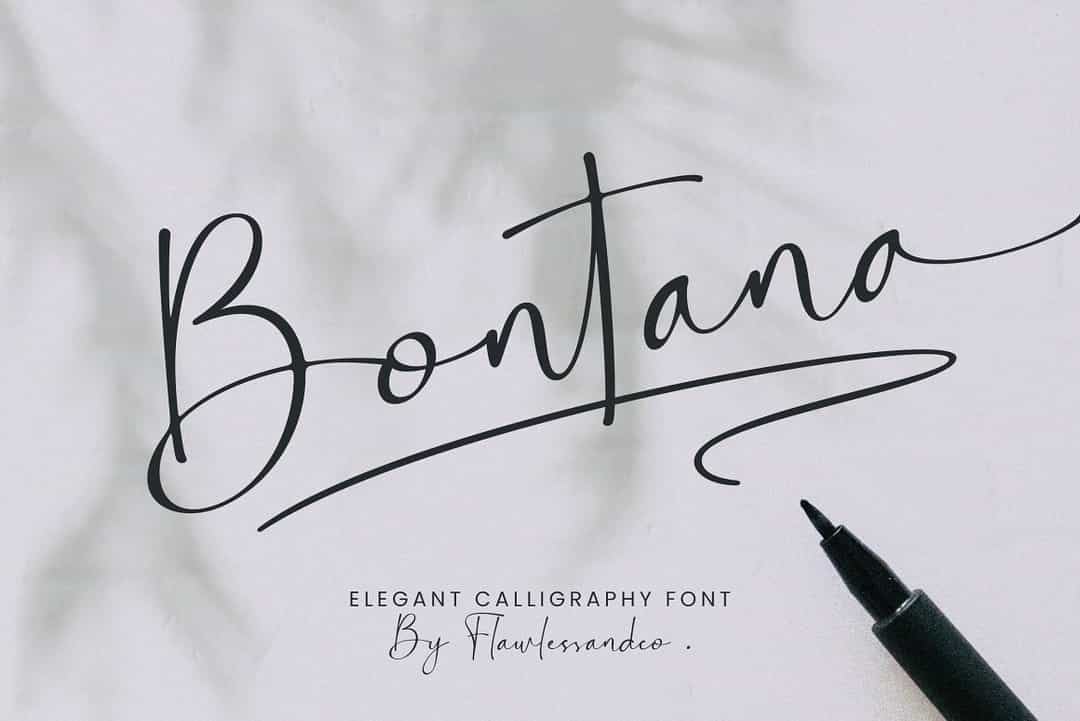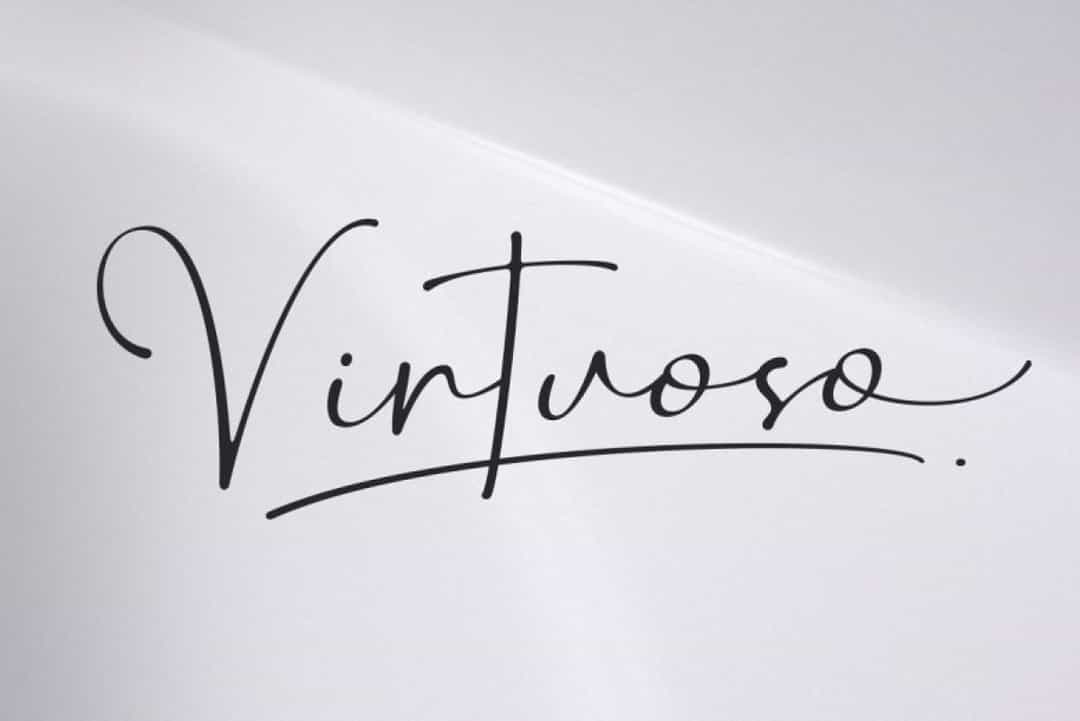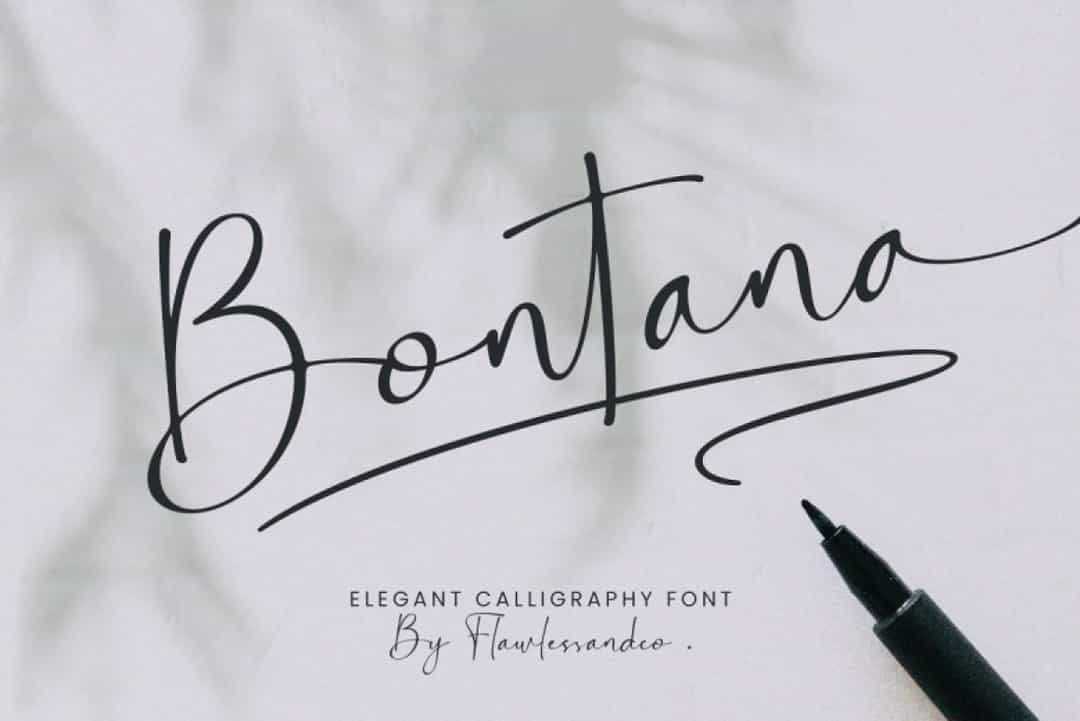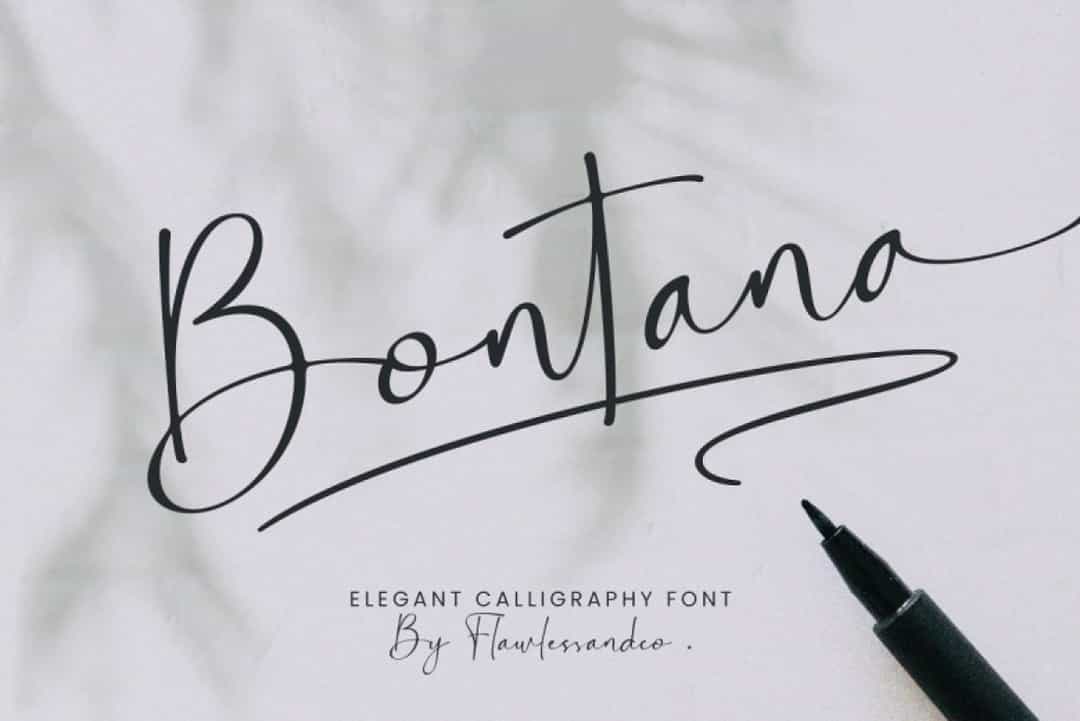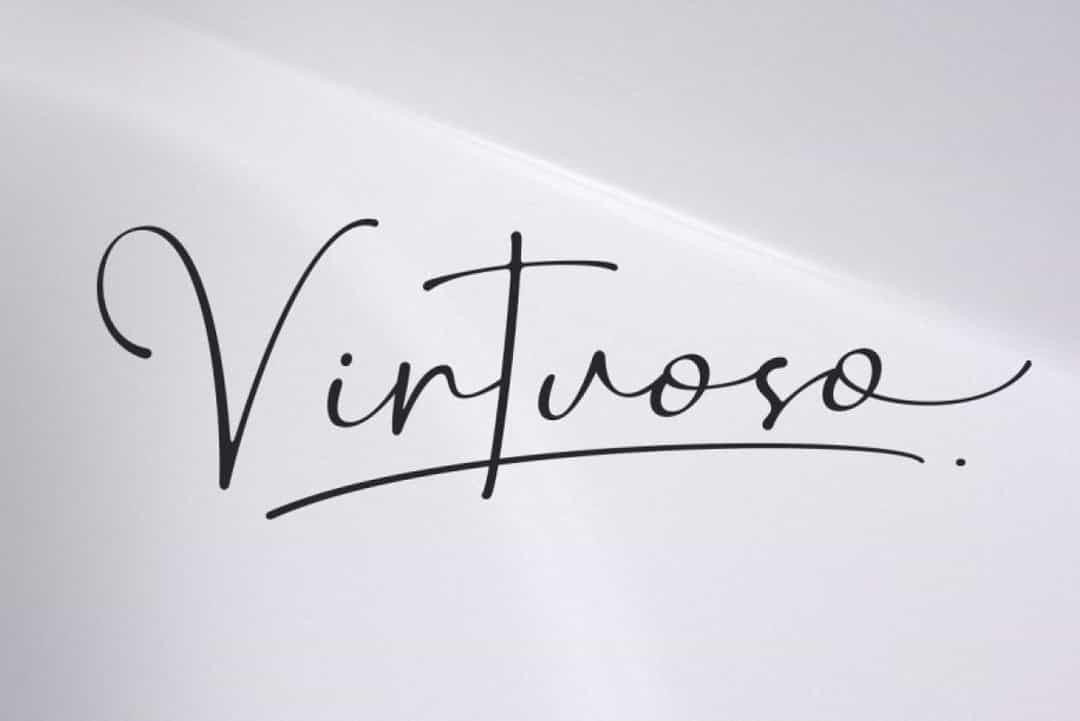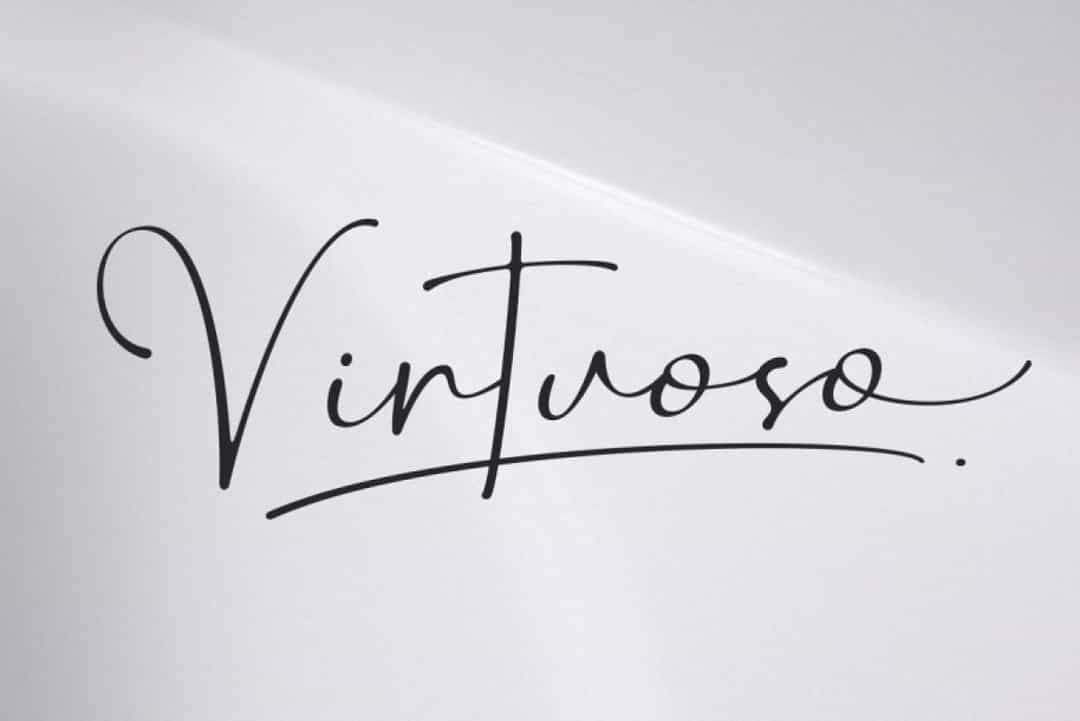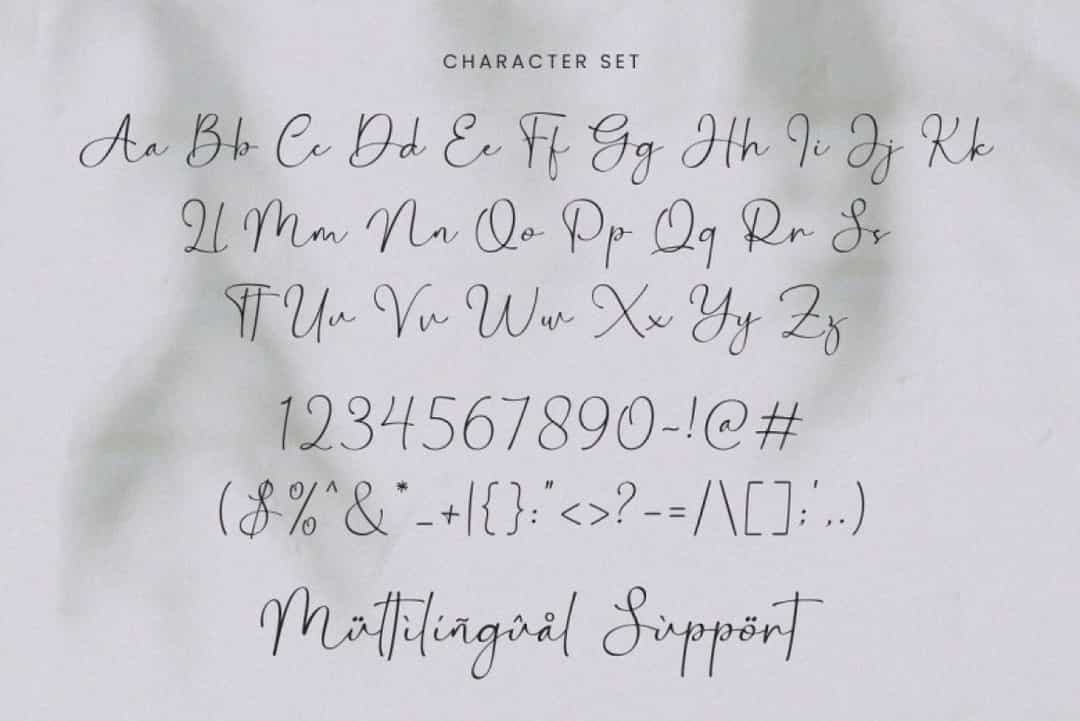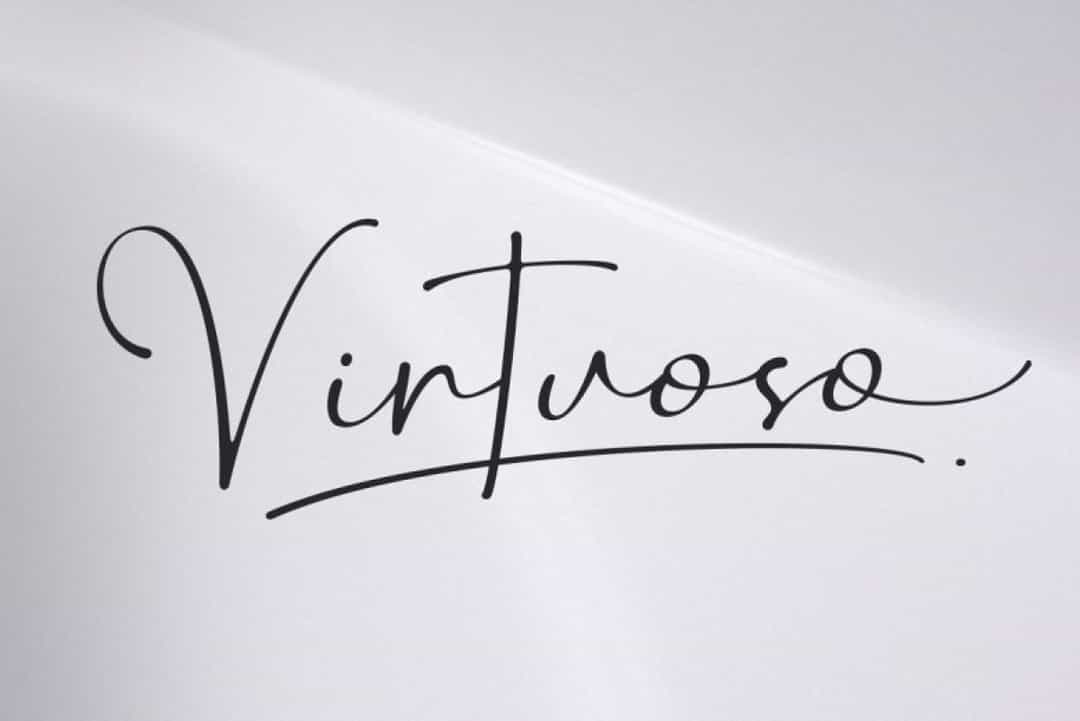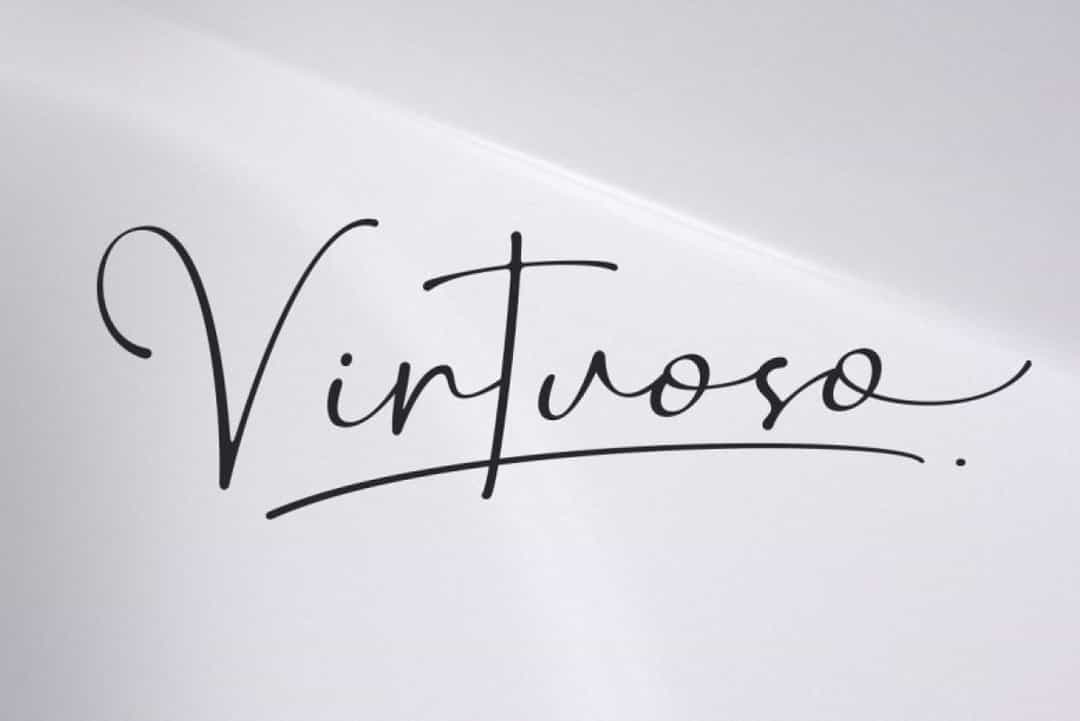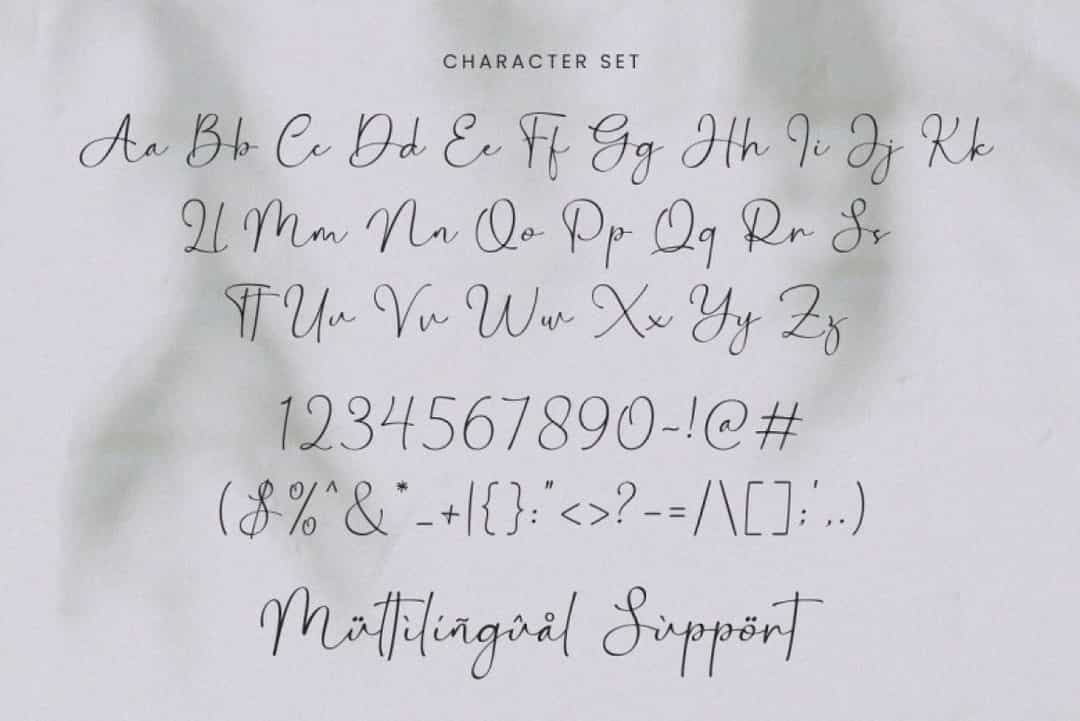
“Bontana” – an elegant calligraphy font – will add timeless elegance and sophisticated beauty to your designs. Boasting fluid strokes and elegant curves, “Bontana” was made to bring sophisticated luxury to any design project.